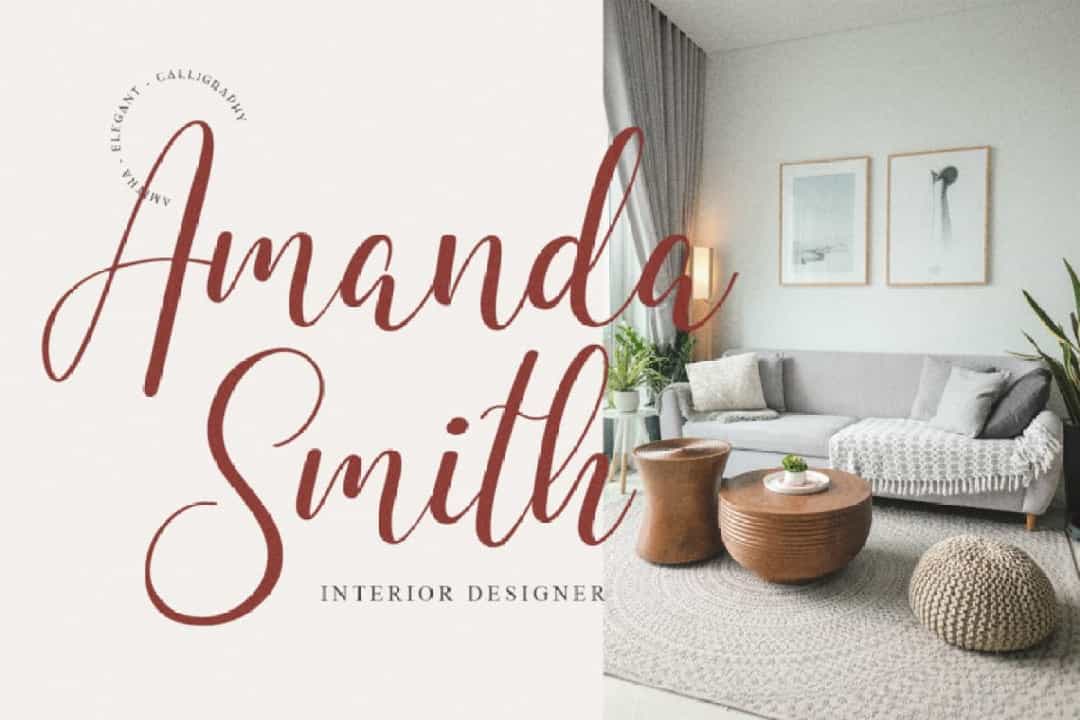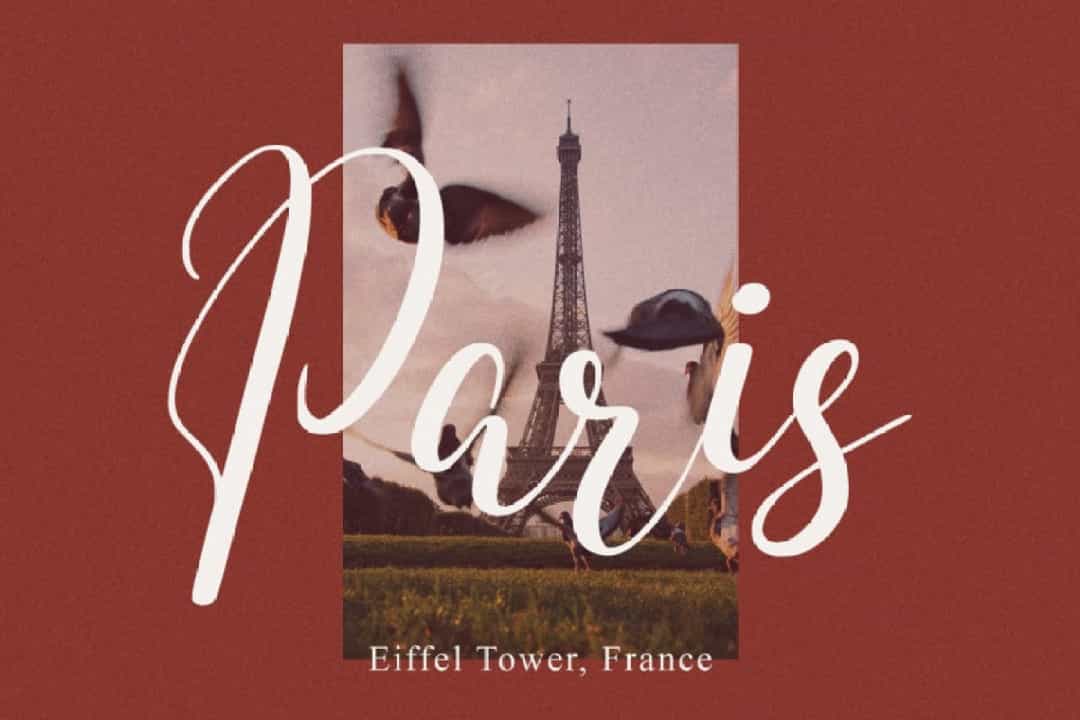
Amitha is a modern script typeface for calligraphy, designed to add authenticity and handcrafted looks to your branding or marketing campaign. Amitha’s smooth edges offer an authentic handcrafted feel.